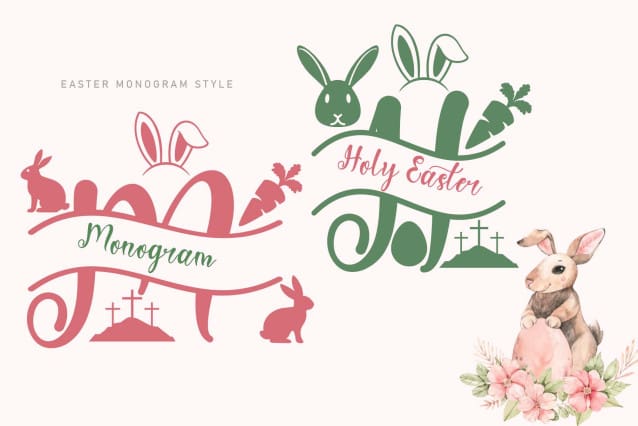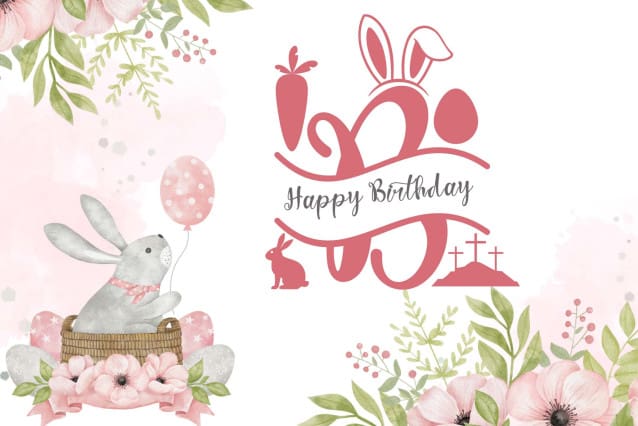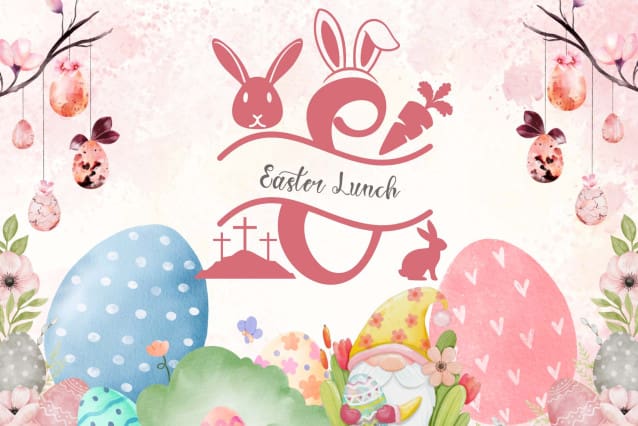
Holy Easter Monogram Font
Holy Easter Monogram Font is a beautiful and elegant monogram font. This font is equipped with monograms, uppercase, lowercase, numerals, punctuation, and multilingual support. Very suitable for Easter, spring, summer, weddings, holidays, animal moments, book titles, film titles, and others.